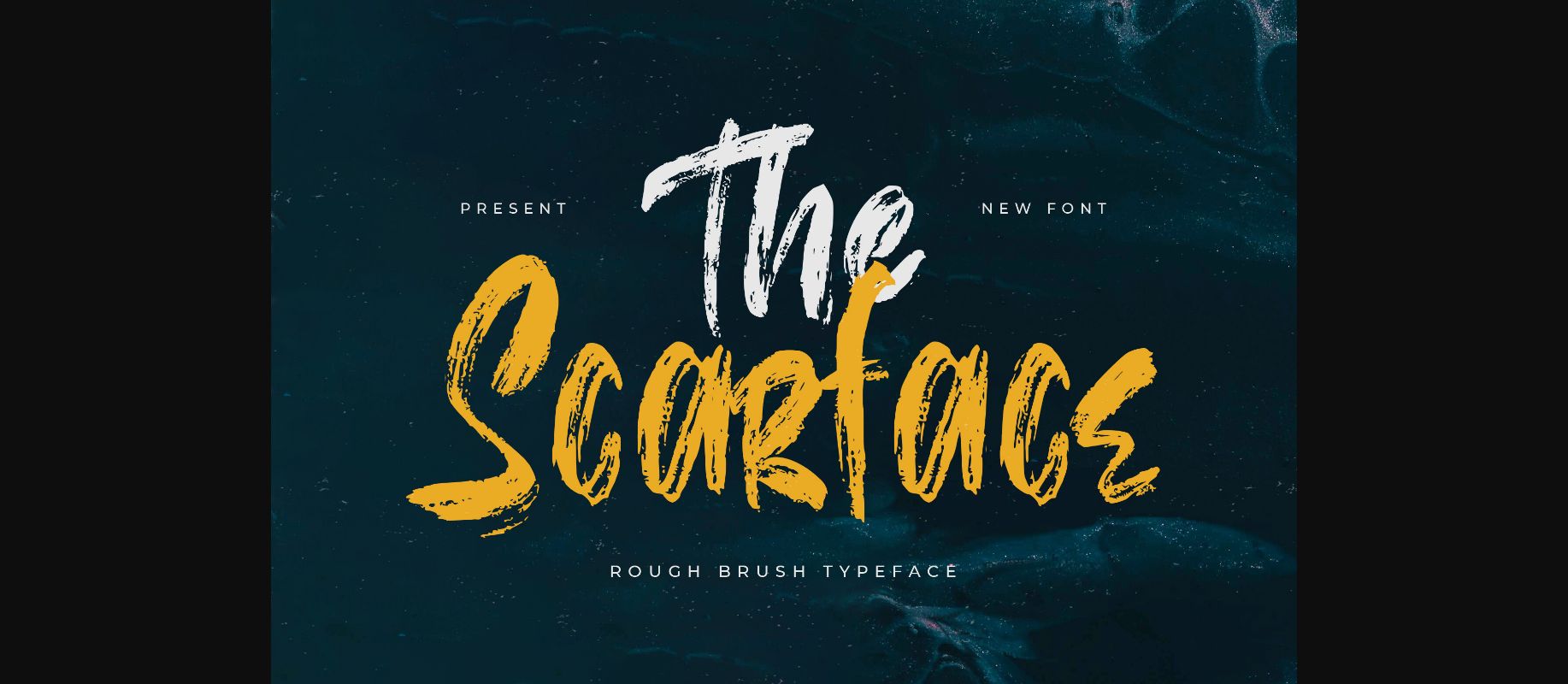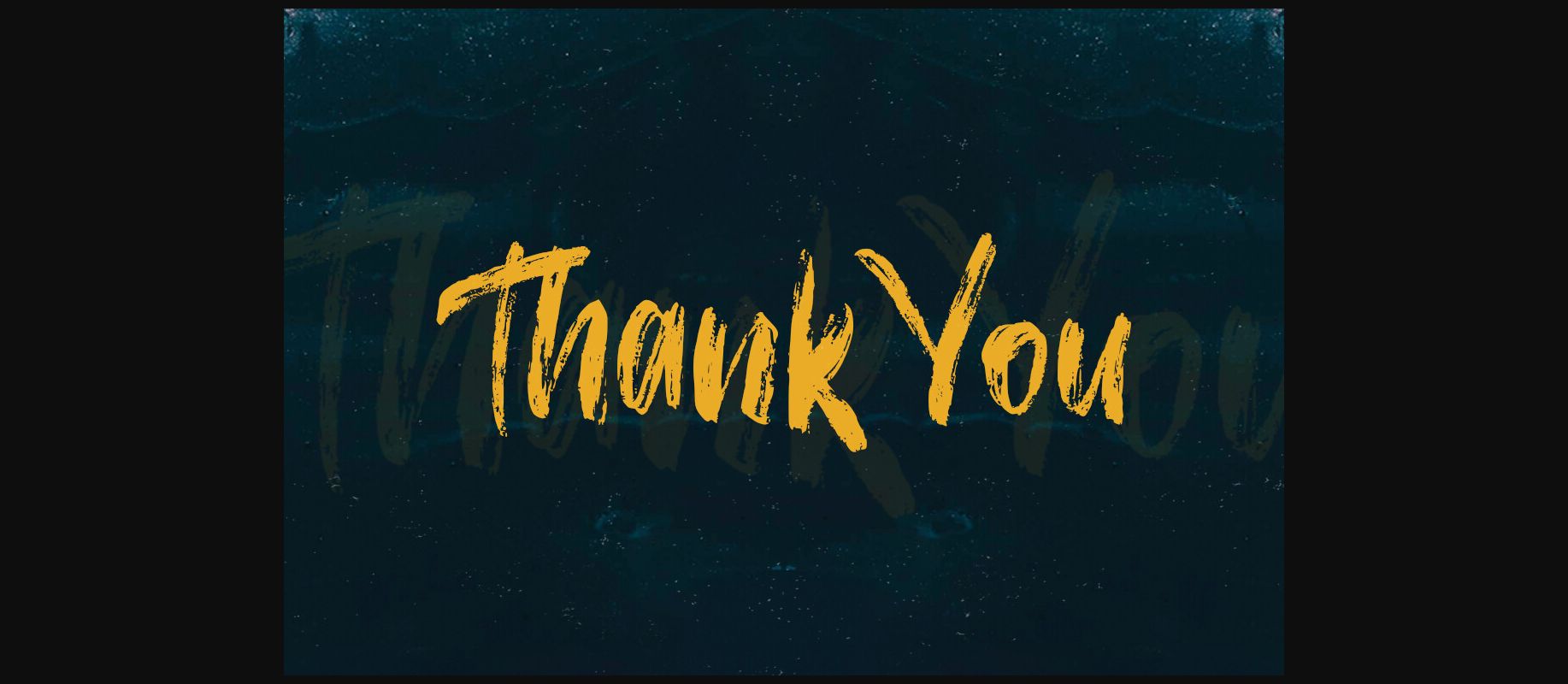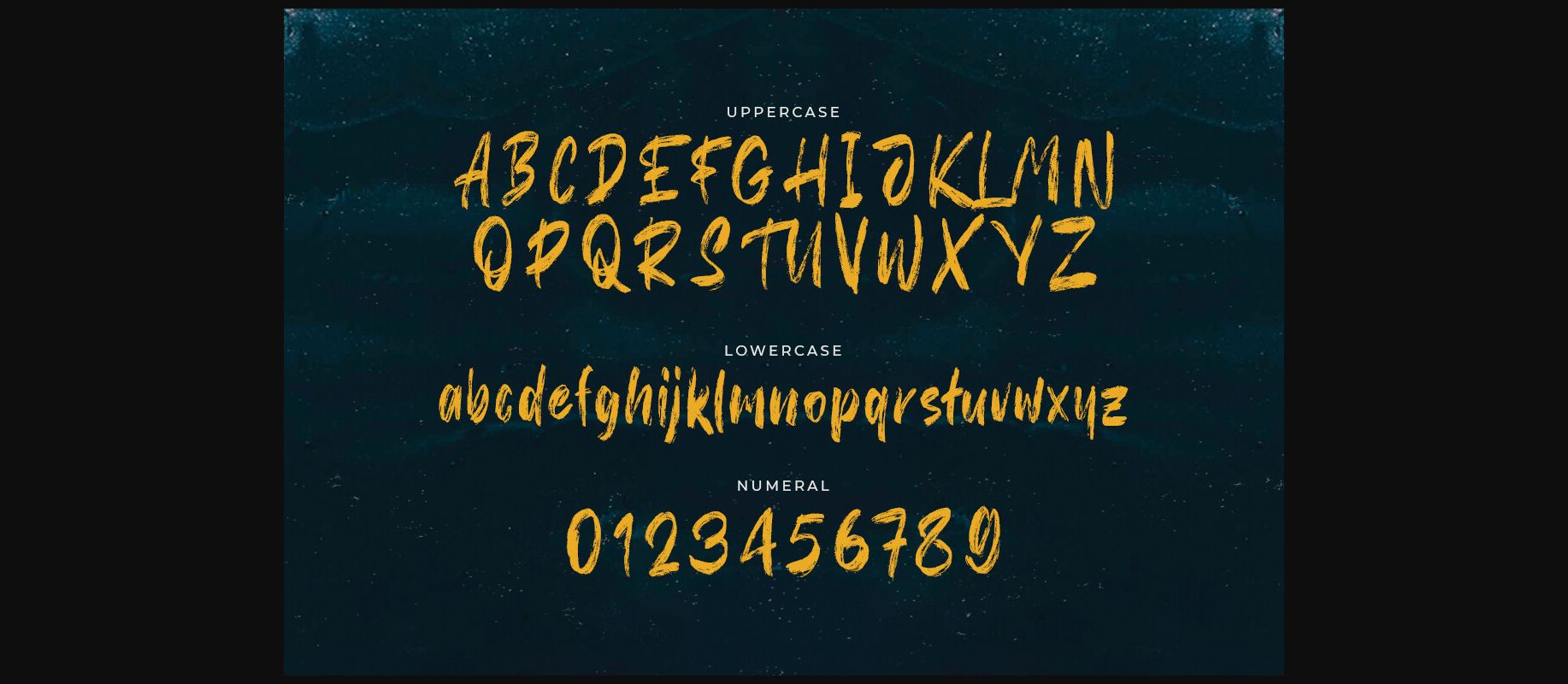
About The Scarface Font
Embrace the rugged allure of “The Scarface” – a rough brush typeface that adds a gritty edge to your designs!
With its textured and expressive letterforms, “The Scarface” captures the essence of raw authenticity. Each character is meticulously crafted to infuse your projects with a touch of boldness and character, making it perfect for urban branding, rebellious posters, street art-inspired graphics, and more.
Embrace the urban vibe of “The Scarface” as it effortlessly enhances your designs. Whether you’re crafting edgy logos, captivating album covers, dynamic headlines, or impactful social media content, this typeface will captivate your audience with its rough and expressive style.
Explore the world of bold creativity with “The Scarface” and watch your designs make a bold statement!
With its textured and expressive letterforms, “The Scarface” captures the essence of raw authenticity. Each character is meticulously crafted to infuse your projects with a touch of boldness and character, making it perfect for urban branding, rebellious posters, street art-inspired graphics, and more.
Embrace the urban vibe of “The Scarface” as it effortlessly enhances your designs. Whether you’re crafting edgy logos, captivating album covers, dynamic headlines, or impactful social media content, this typeface will captivate your audience with its rough and expressive style.
Explore the world of bold creativity with “The Scarface” and watch your designs make a bold statement!